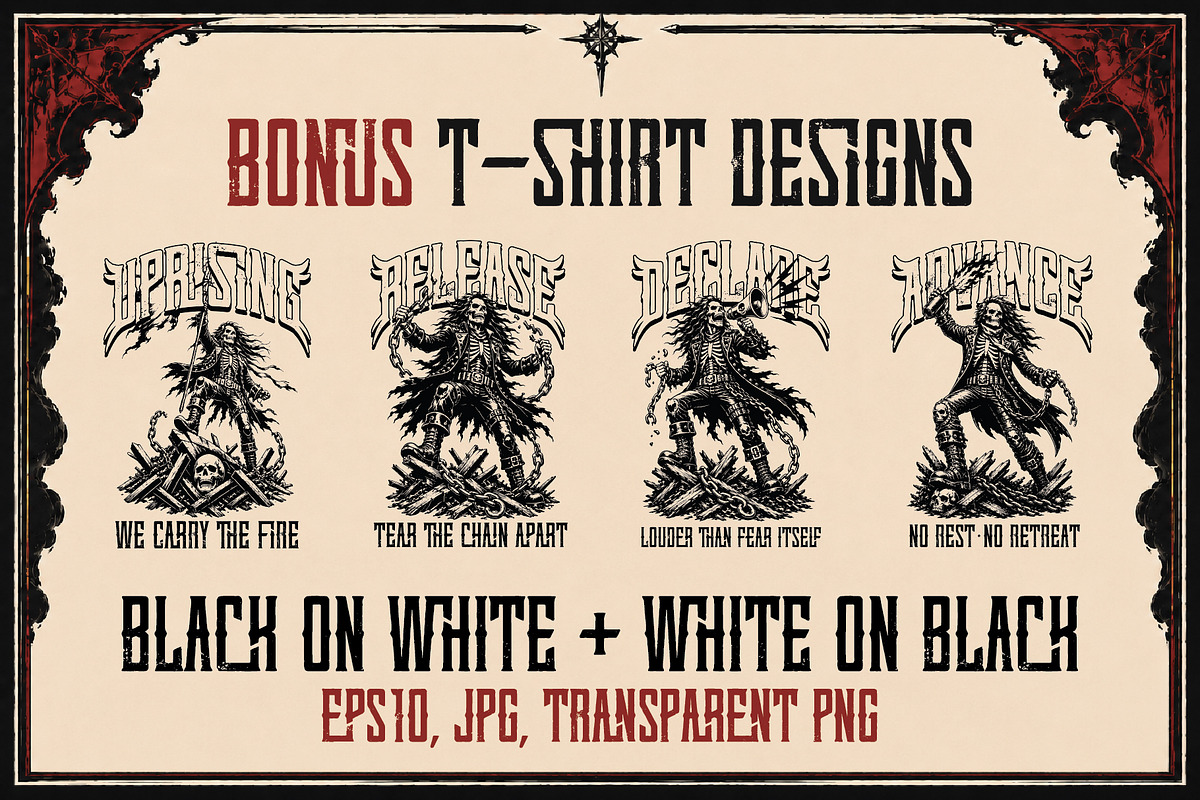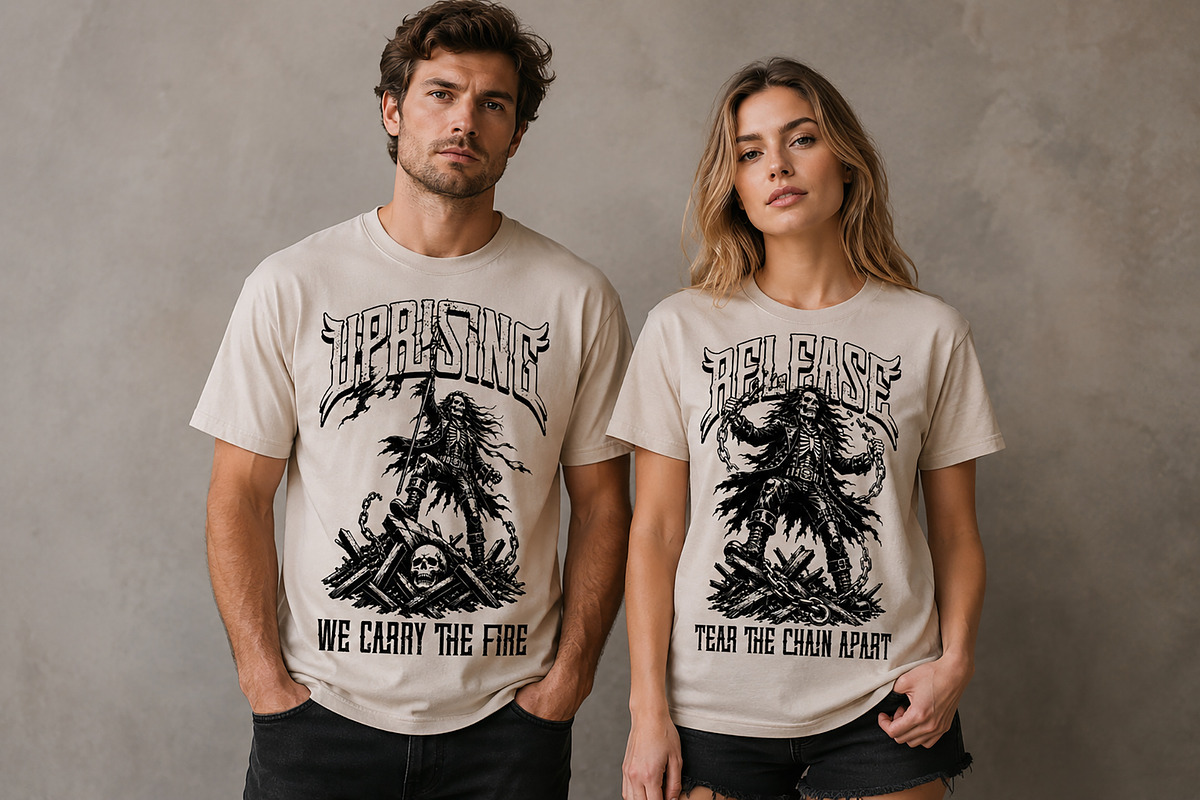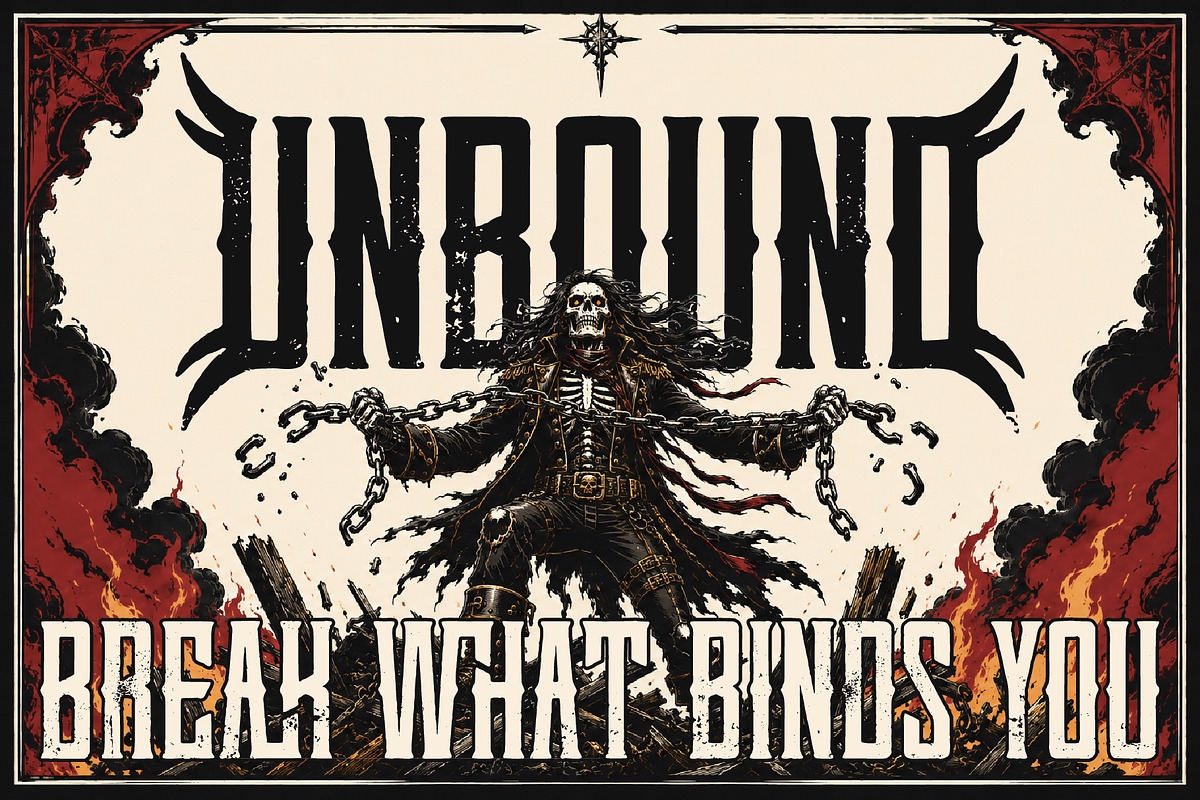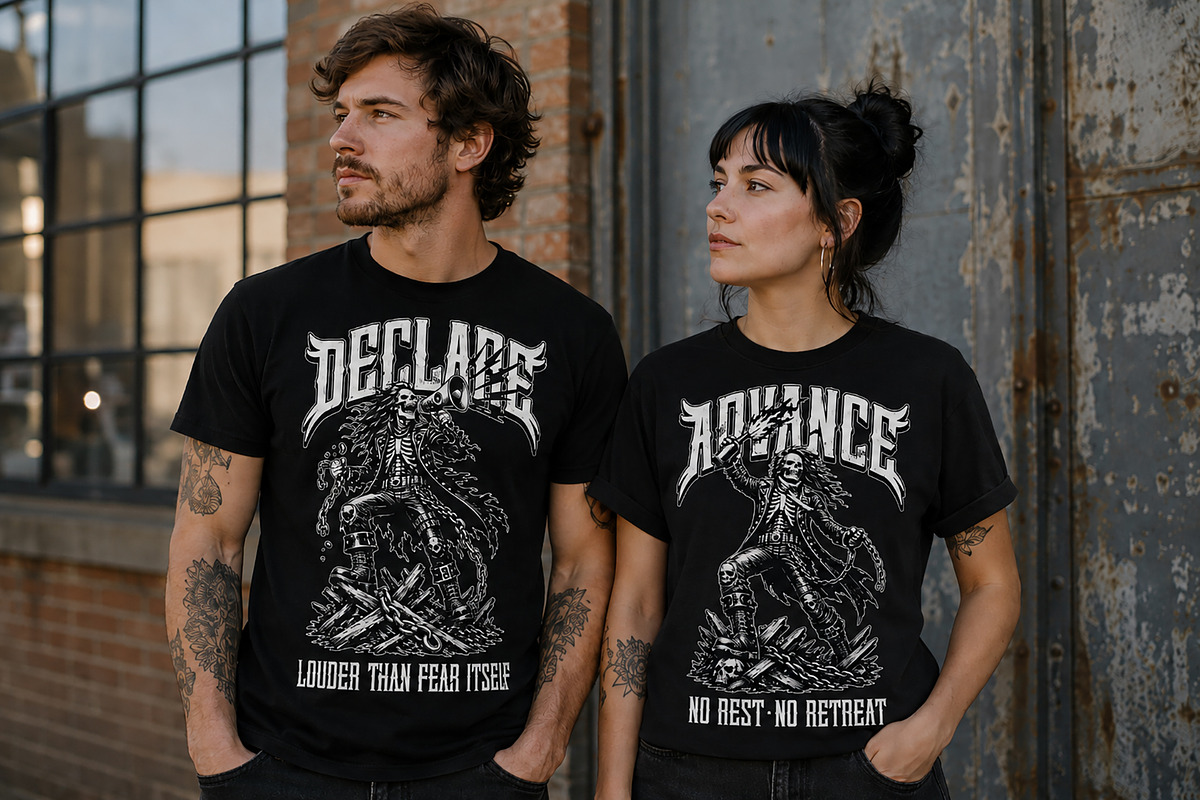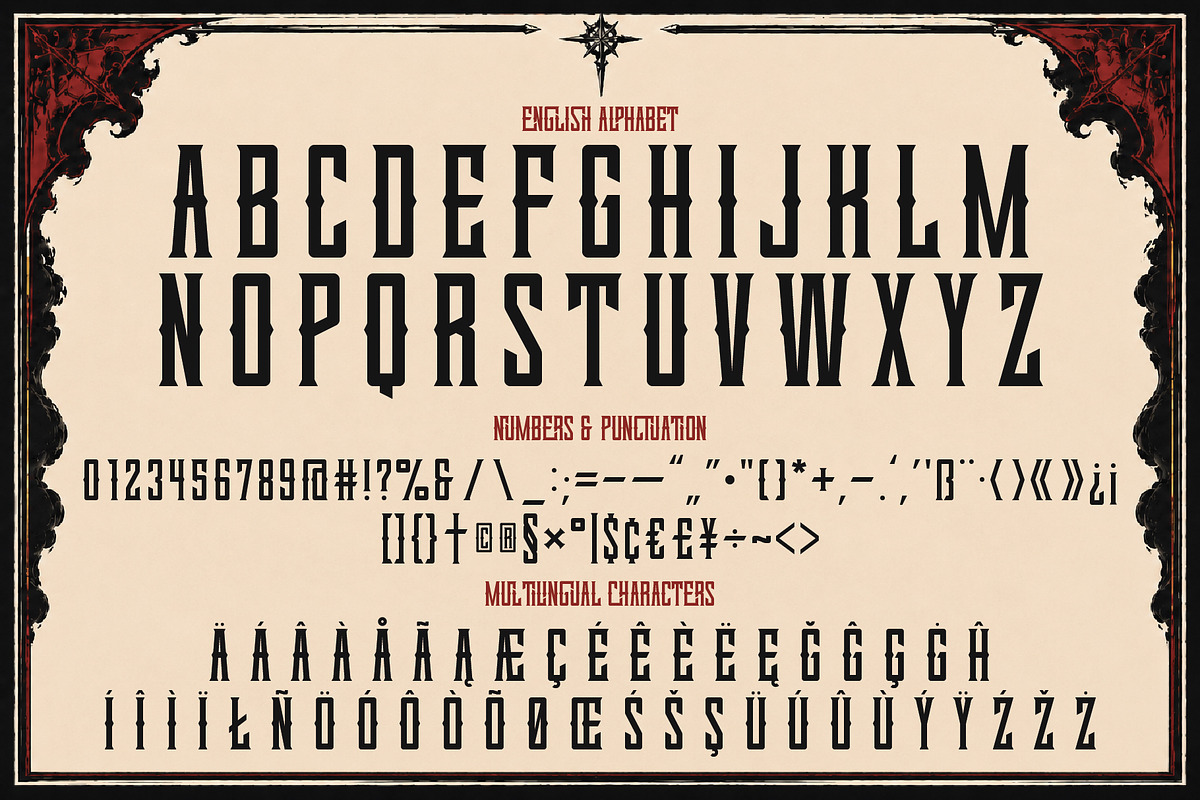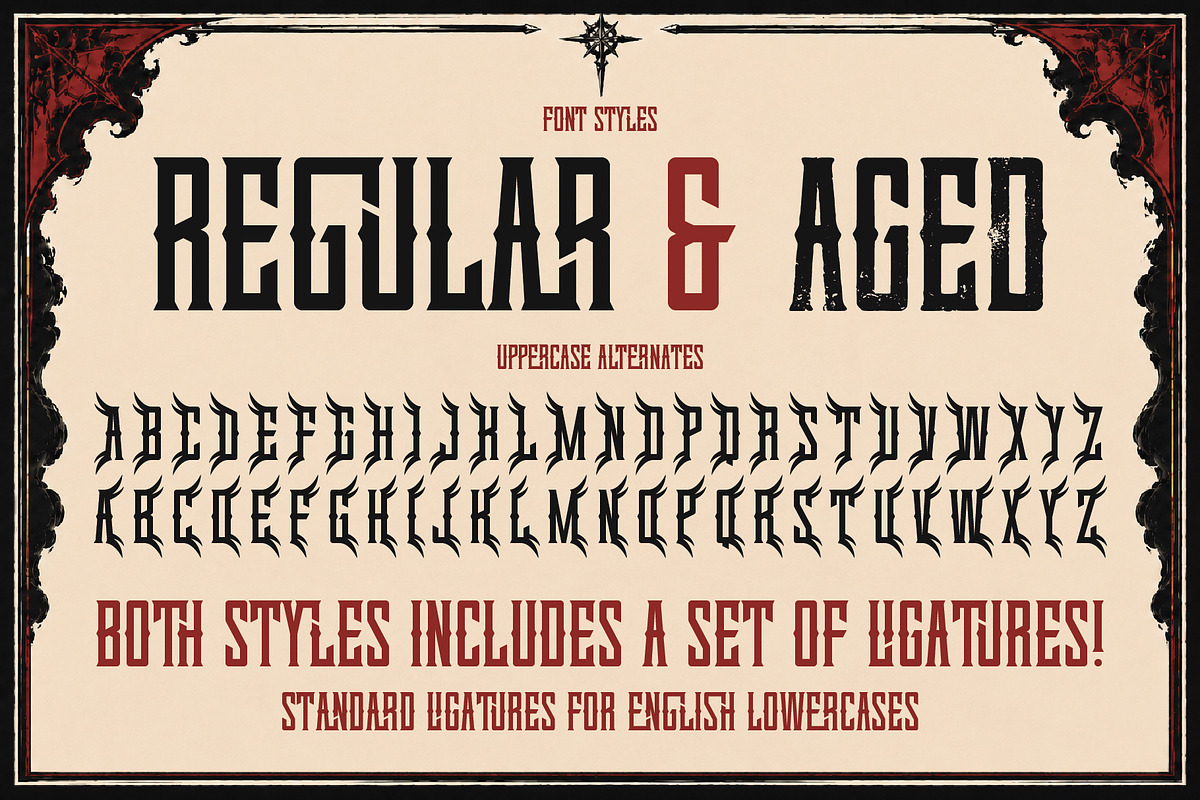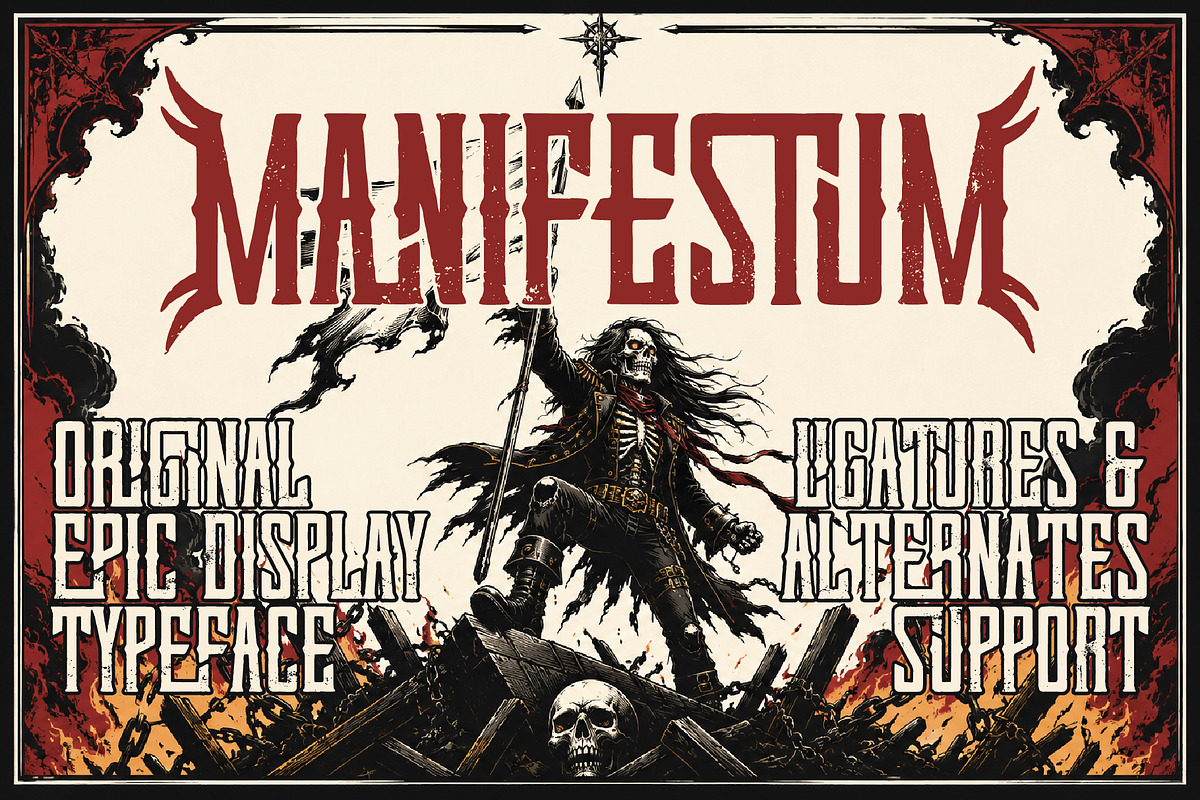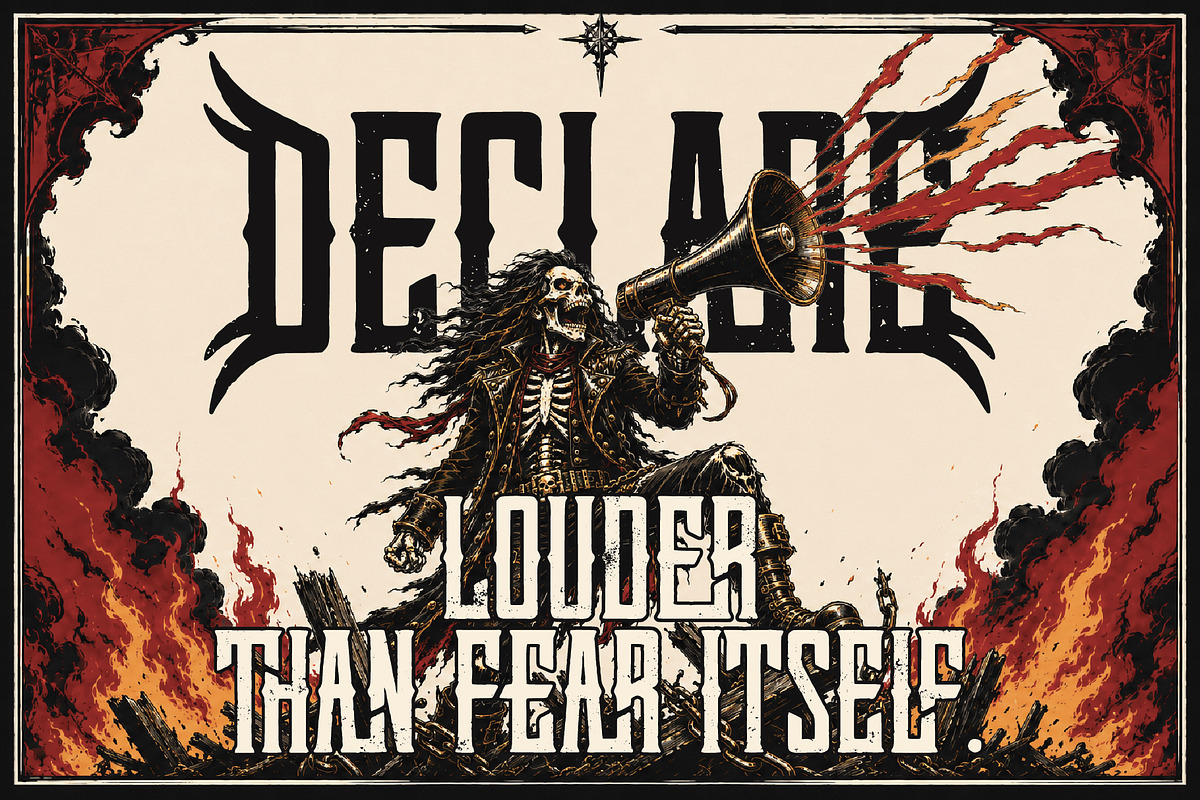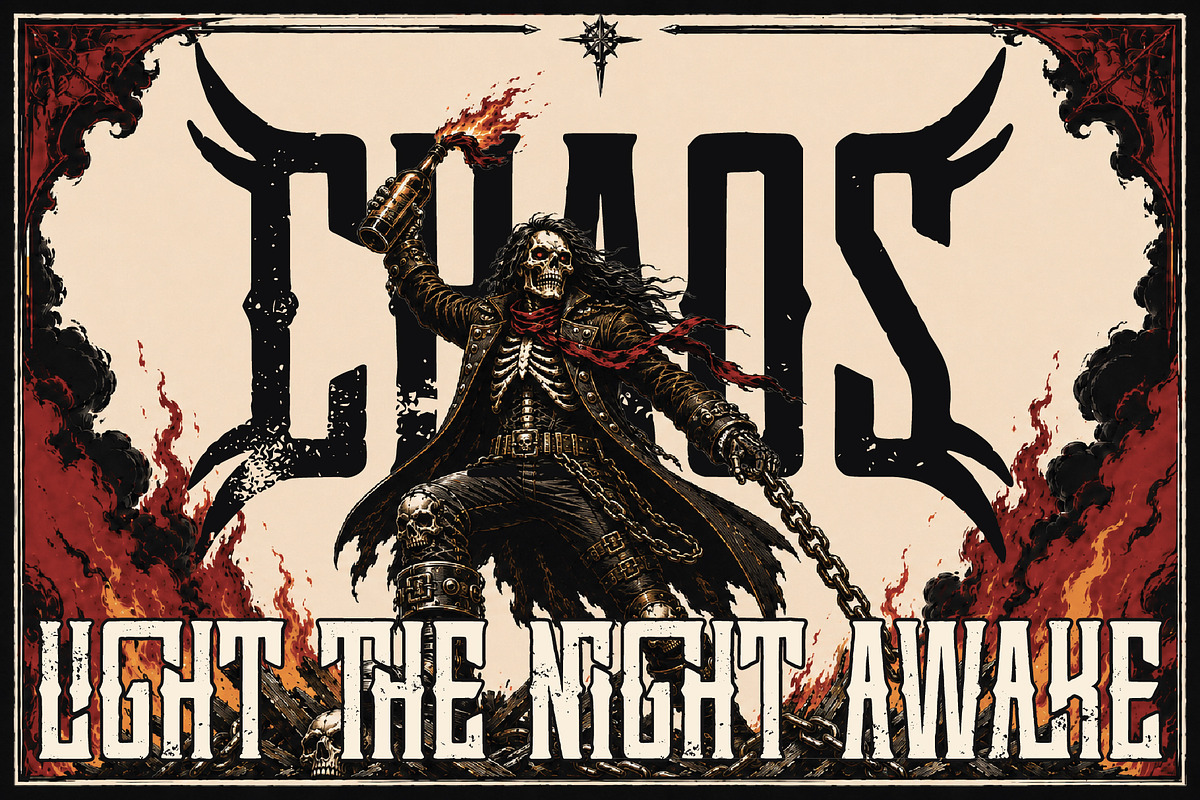
Manifestum | Display Typeface
⚡️ UNLEASH THE CHAOS: Manifestum – Epic Display Typeface ⚡️
Are you ready to break what binds you? Meet Manifestum, the ultimate epic display font designed for designs that refuse to be quiet. If your project needs to scream with power, rebellion, and raw energy, this font is your weapon of choice.
Whether you are designing heavy metal album covers, aggressive streetwear branding, dark fantasy gaming interfaces, tattoo merchandise, or badass posters, Manifestum delivers an instant, uncompromised visual impact. It’s not just a typeface; it’s a manifesto of power.
🎨 Two Badass Styles Included:
Manifestum Regular: Sharp, clean, lethal, and architectural. Perfect for high-contrast, modern metal, and premium dark branding.
Manifestum Aged: Battle-tested, grungy, and eroded. It gives your text an authentic, weathered, vintage print or post-apocalyptic texture right out of the box.
🔥 What Makes Manifestum Absolute Top-Tier?
Epic Uppercase Alternates: Want that killer custom logo look? The font includes special spiked, winged, and extended alternate characters for the beginning and end of your words. Transform a standard title into a custom logotype in seconds!
Pro Ligatures Support: Seamlessly connects letters for a organic, custom-lettered flow.
Full Multilingual Support: Ready for global domination with characters that support western and central European languages.
Complete Set: Upper cases, numbers, and extensive punctuation marks included.
This font is heavily optimized for streetwear clothing brands, band merch, e-sports logos, Halloween graphics, book covers, movie titles, and vector poster designs. It brings that sought-after death metal, gothic blackletter, and hardcore punk aesthetic into the modern design era.